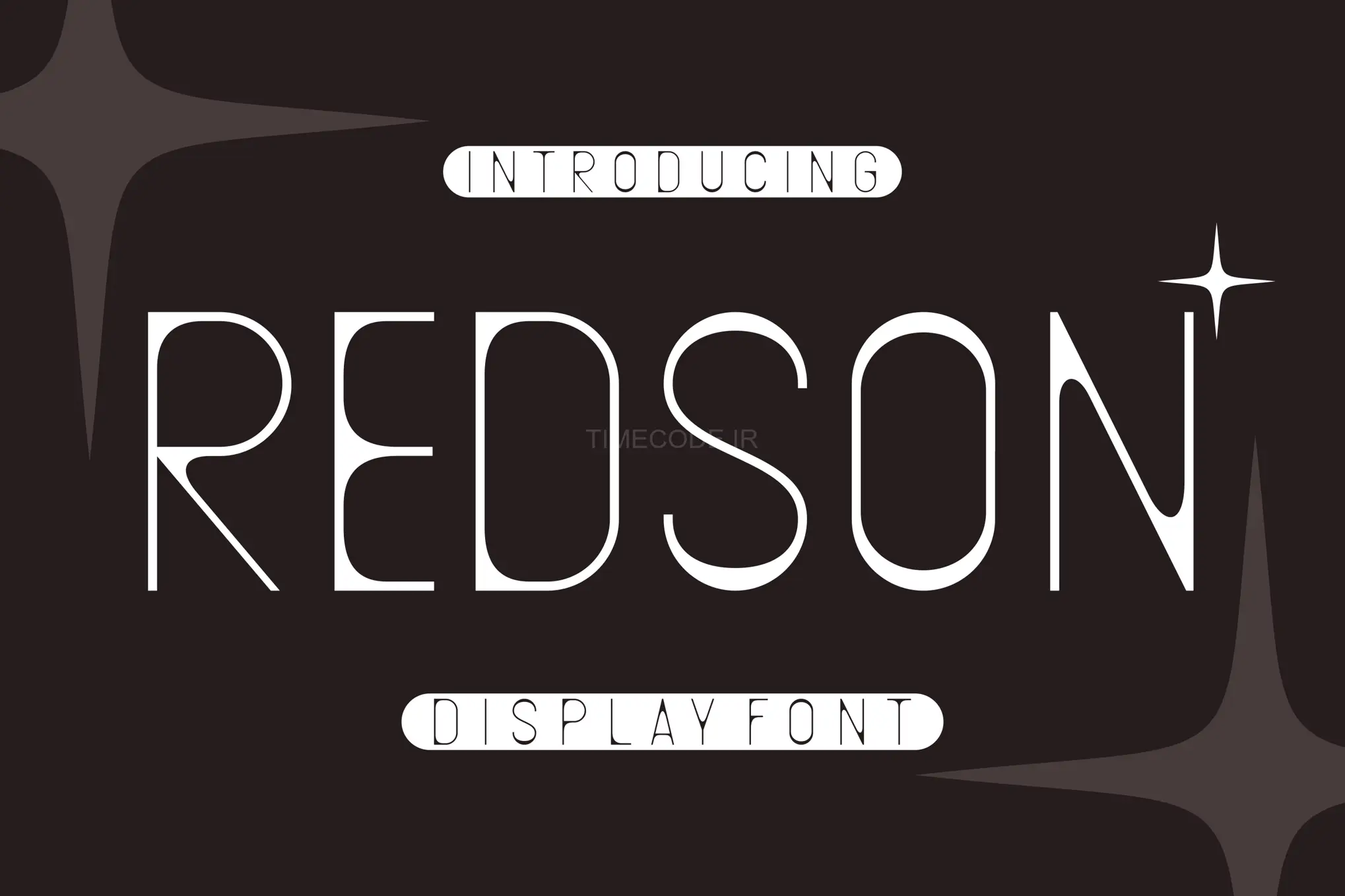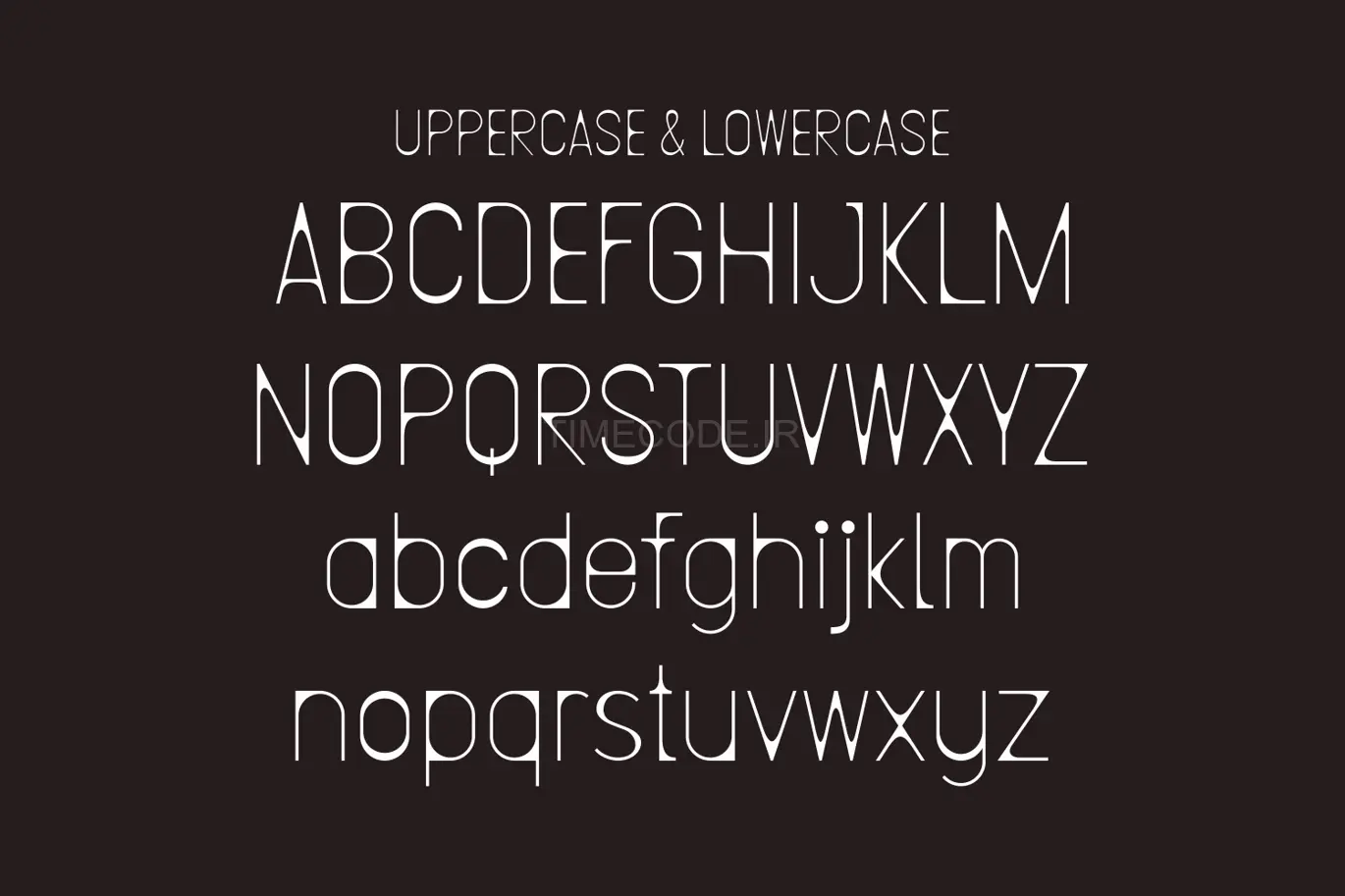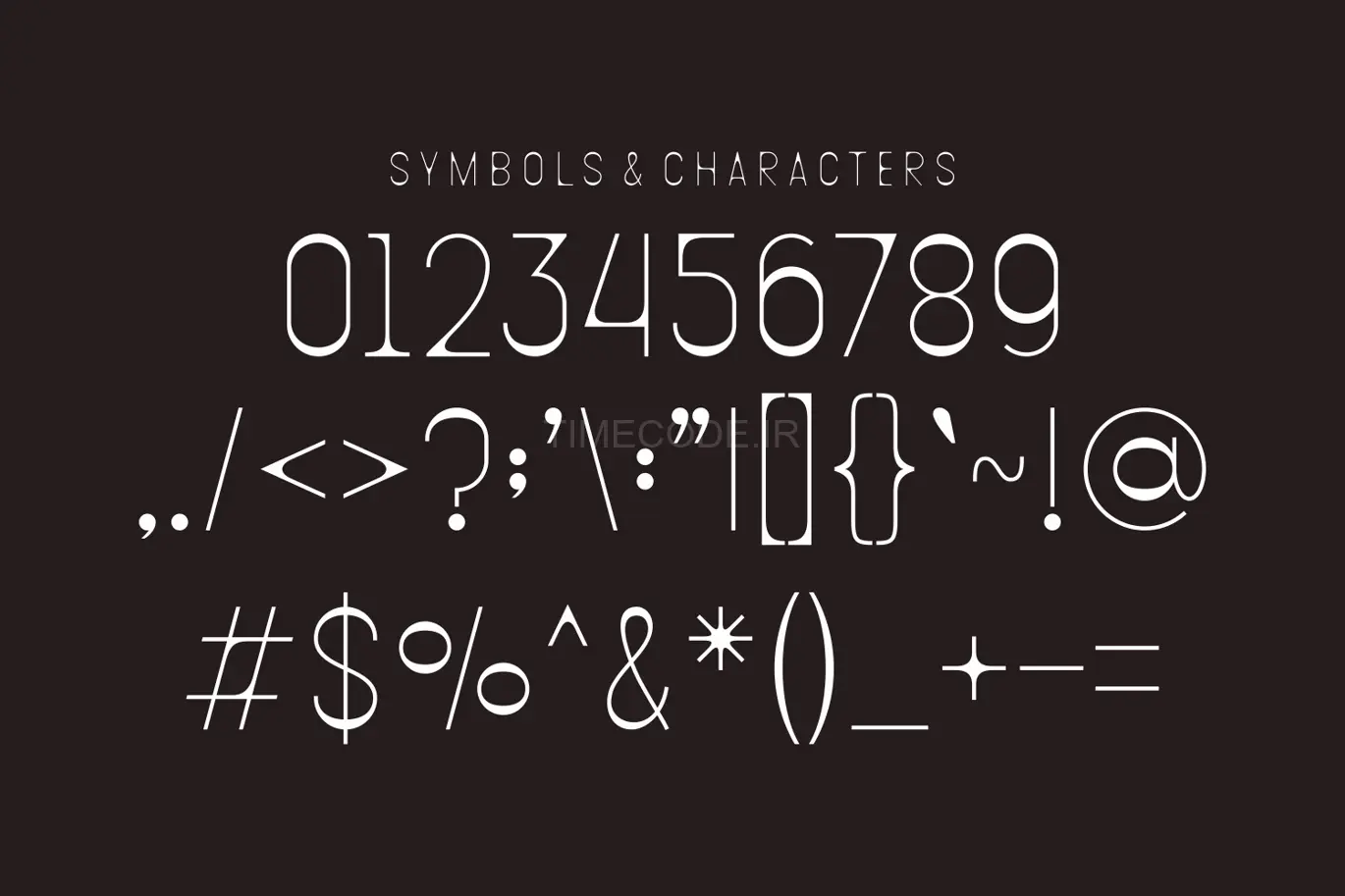
Redson - Display Font
Perfectly suited on print/screen. it’s perfect for Branding, name card, poster, logo, magazine,
cover, banner, t-shirt and headers, or even large-scale artwork.
Features:
Uppercase & Lowercase
Number
Punctuation